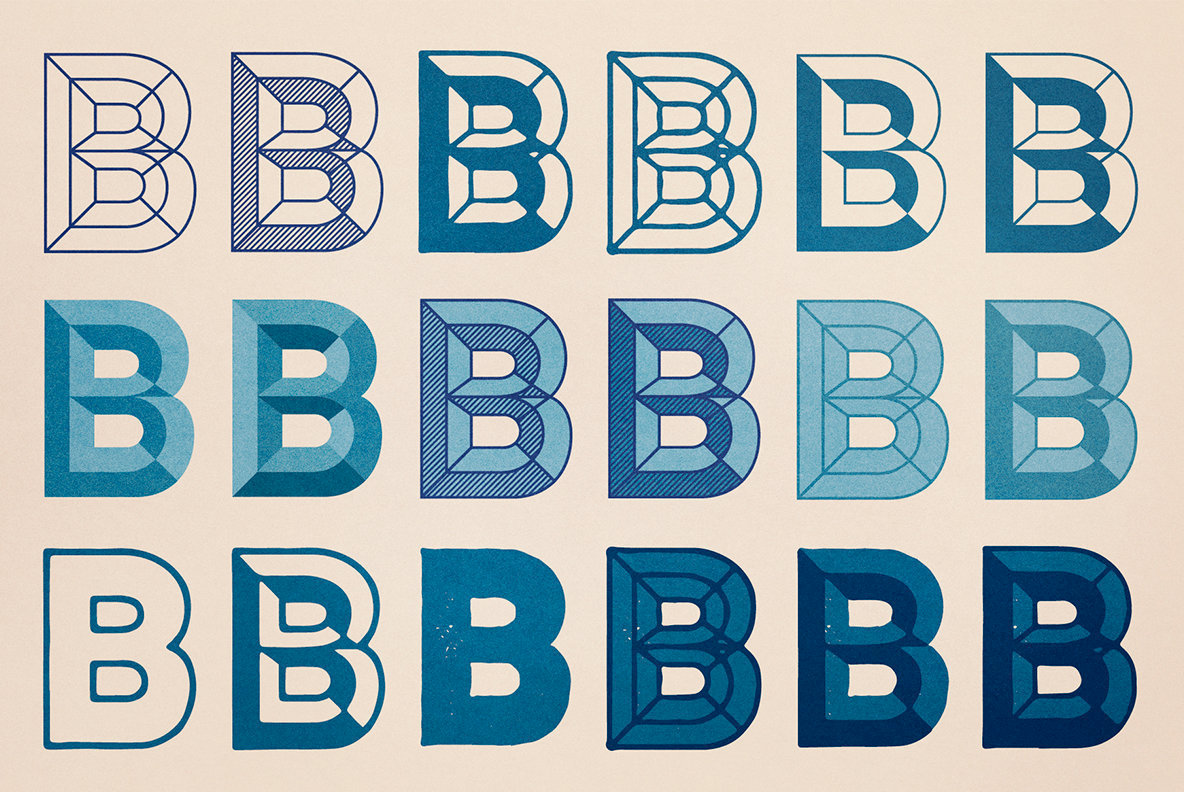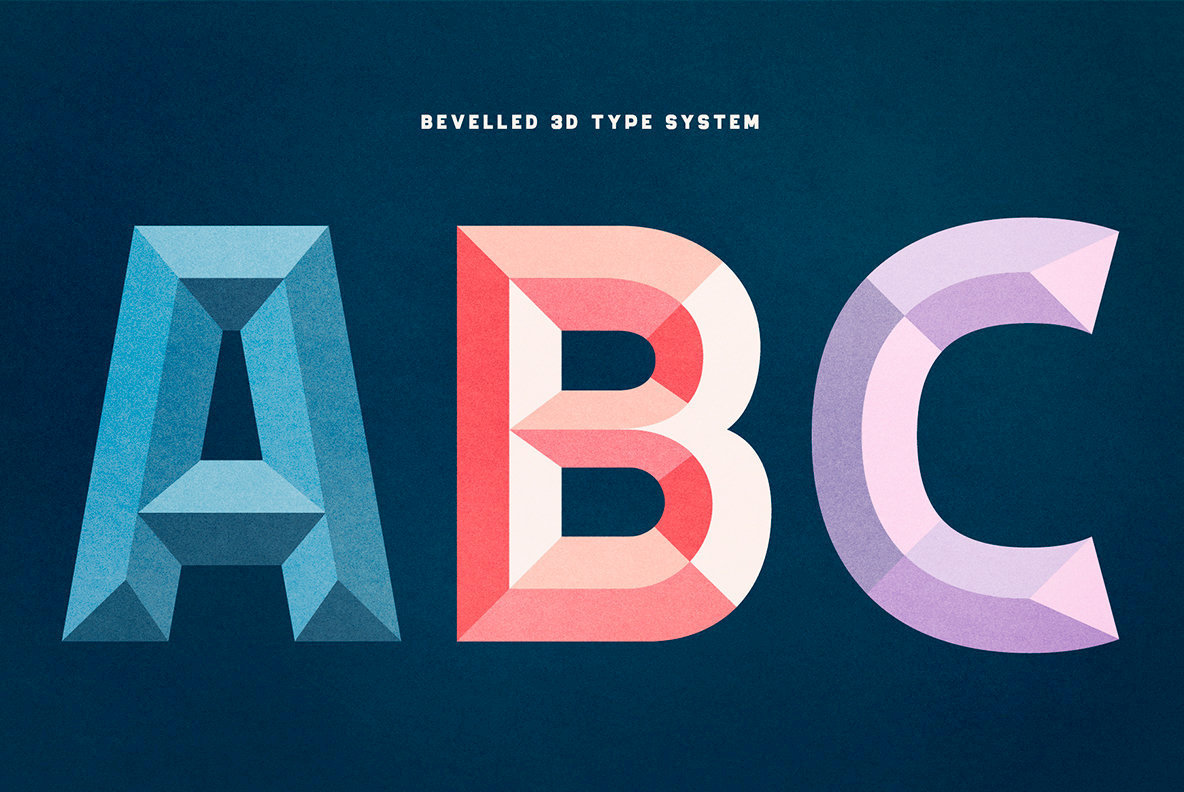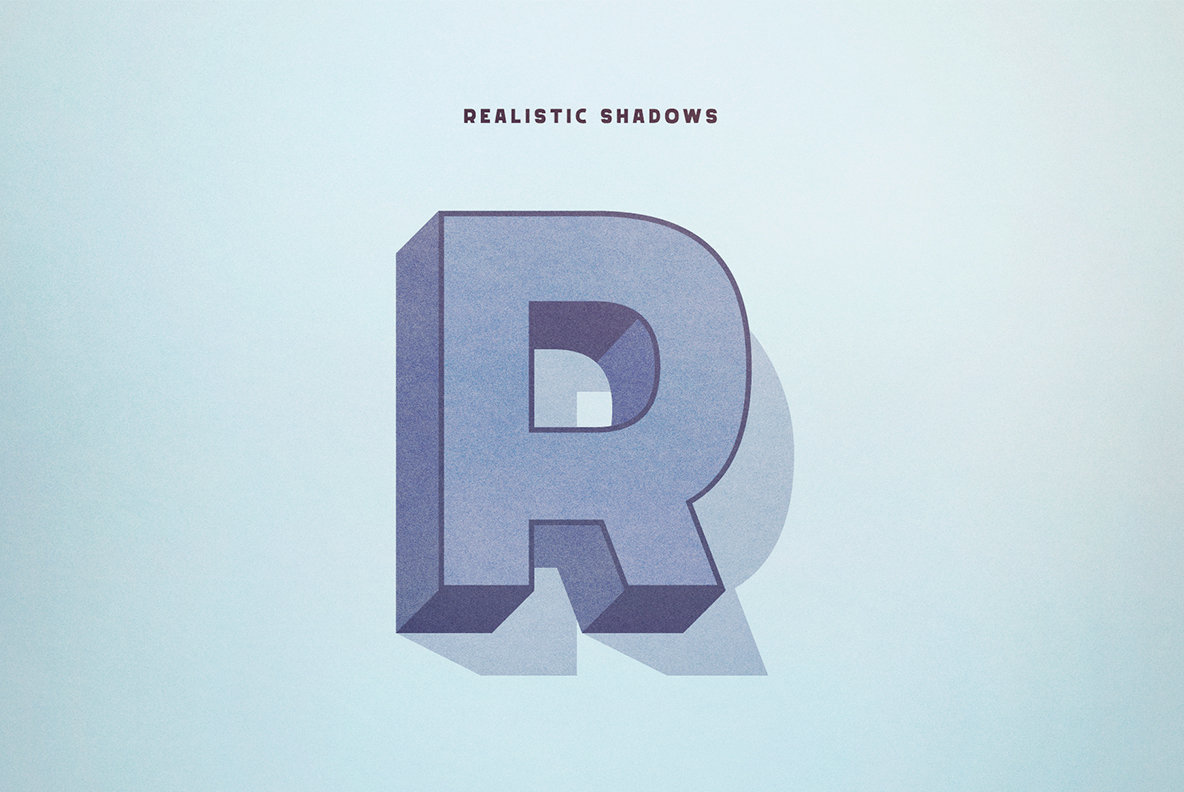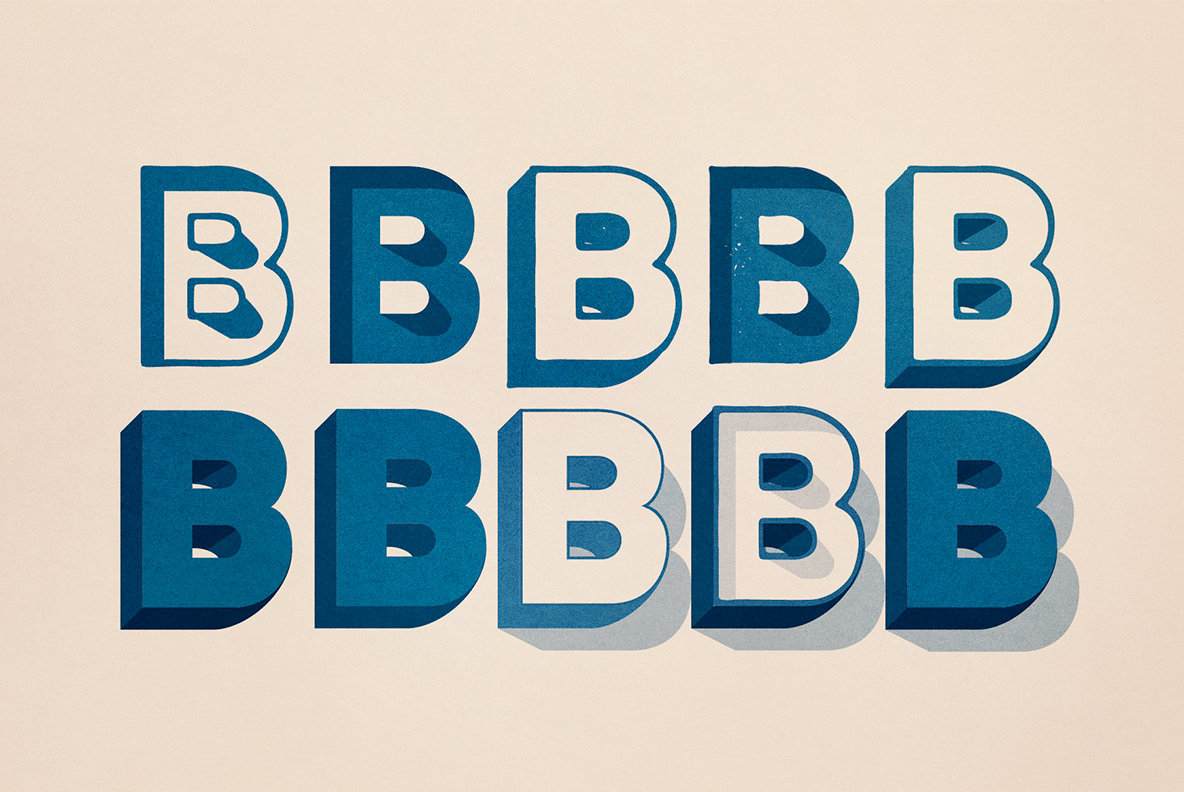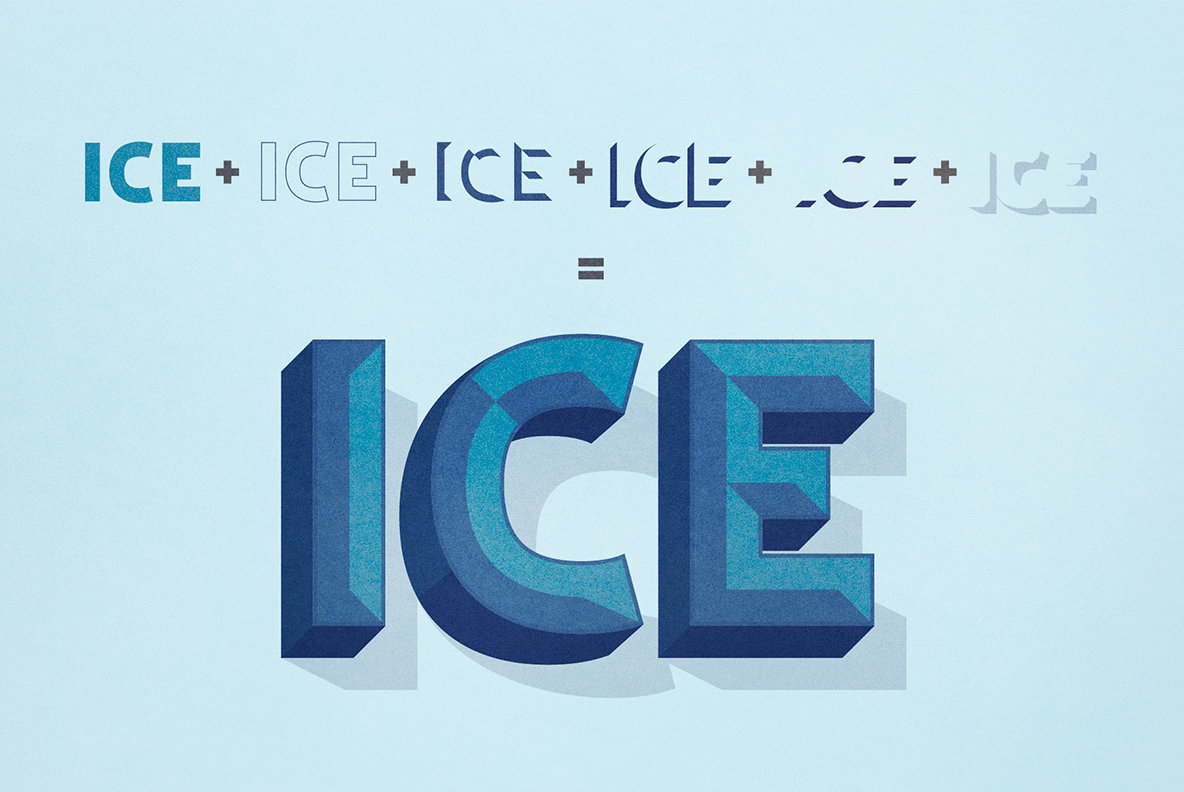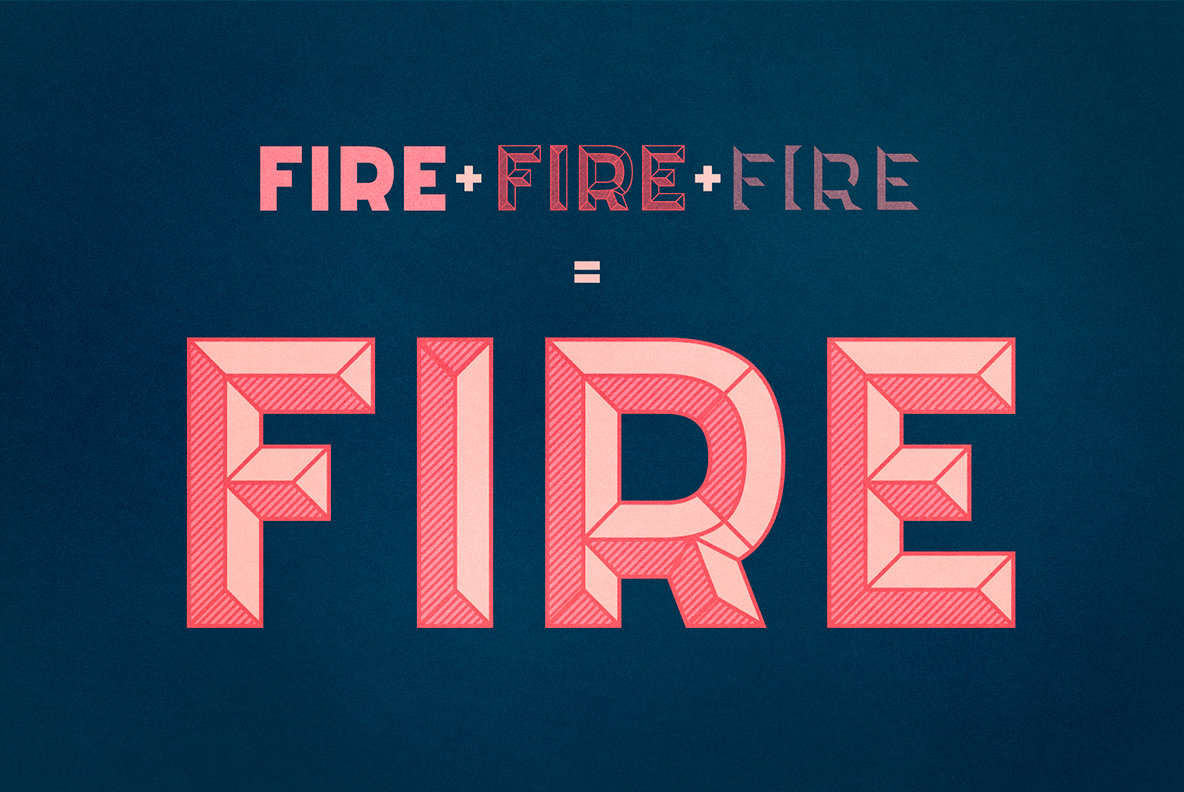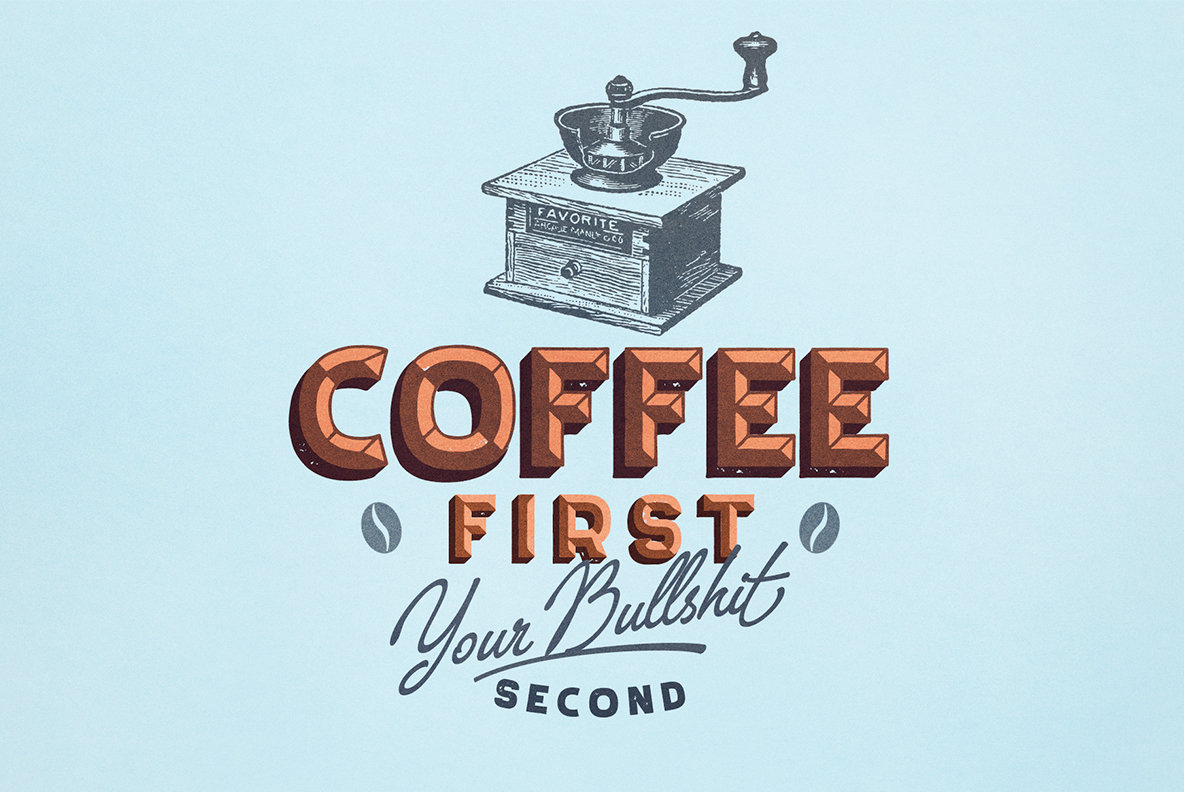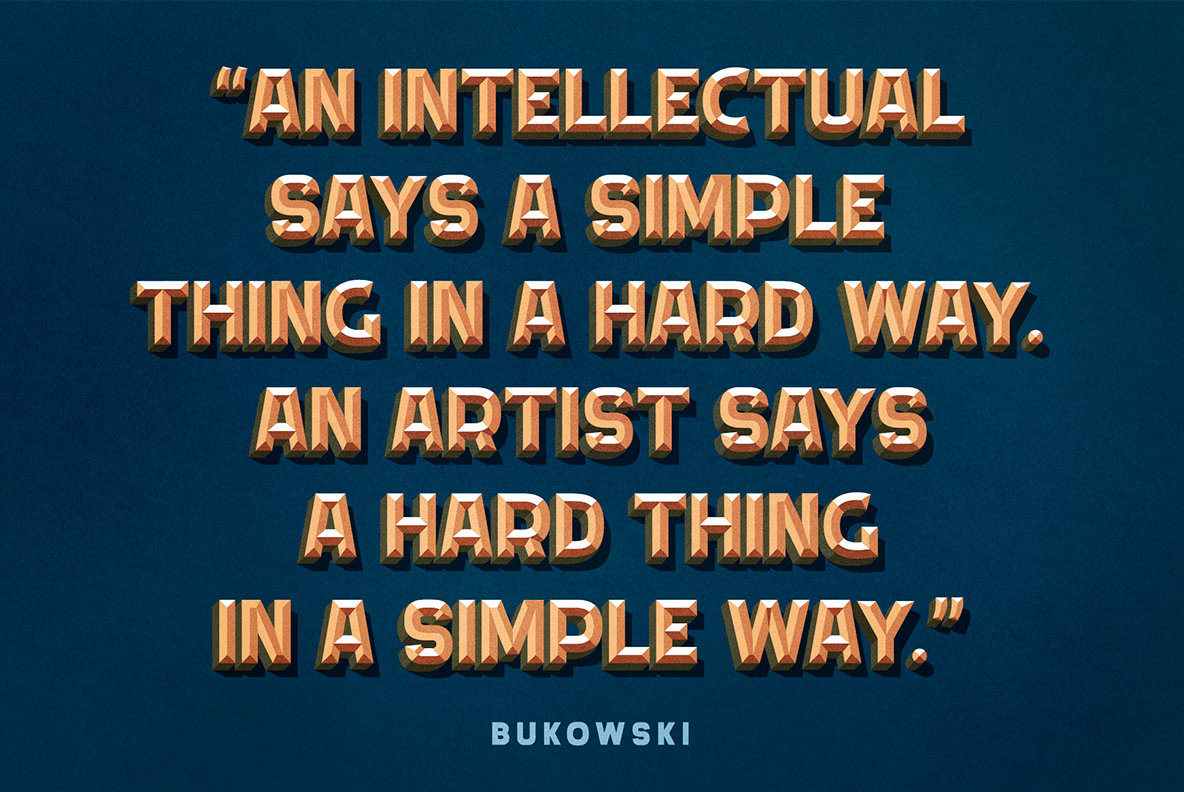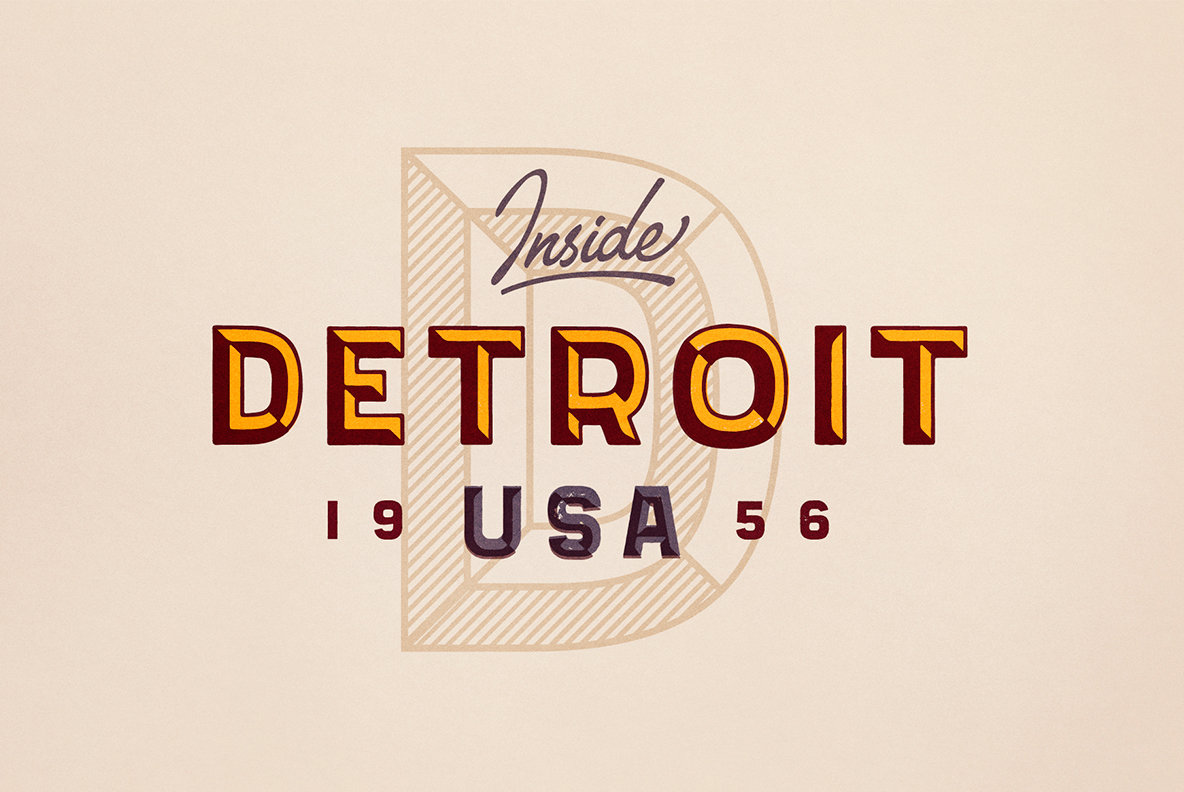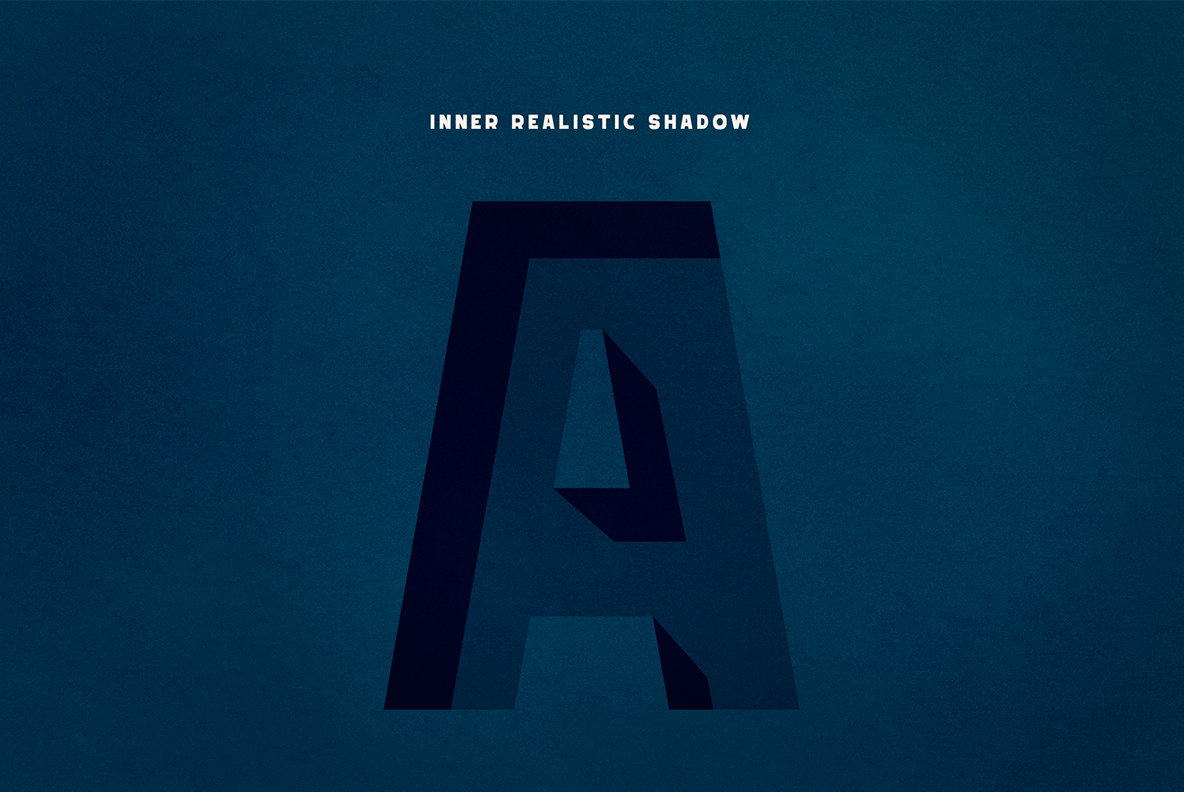
Sandwich Font
Sandwich is a beveled 3d type system with many font styles to give you a lot of variety of use. A layered system with sandwich construction principe give you unique 3D style for your words. You can use clean and modern version or, if you want, can be more retro look and use roughen styles. Sandwich is perfect for Logos, Signage, Posters, Apparel, Headlines, etc. A perfect-constructed type with basic latin set of caps with numbers, symbols and punctuation. Has no multilingual characters (for the time being).